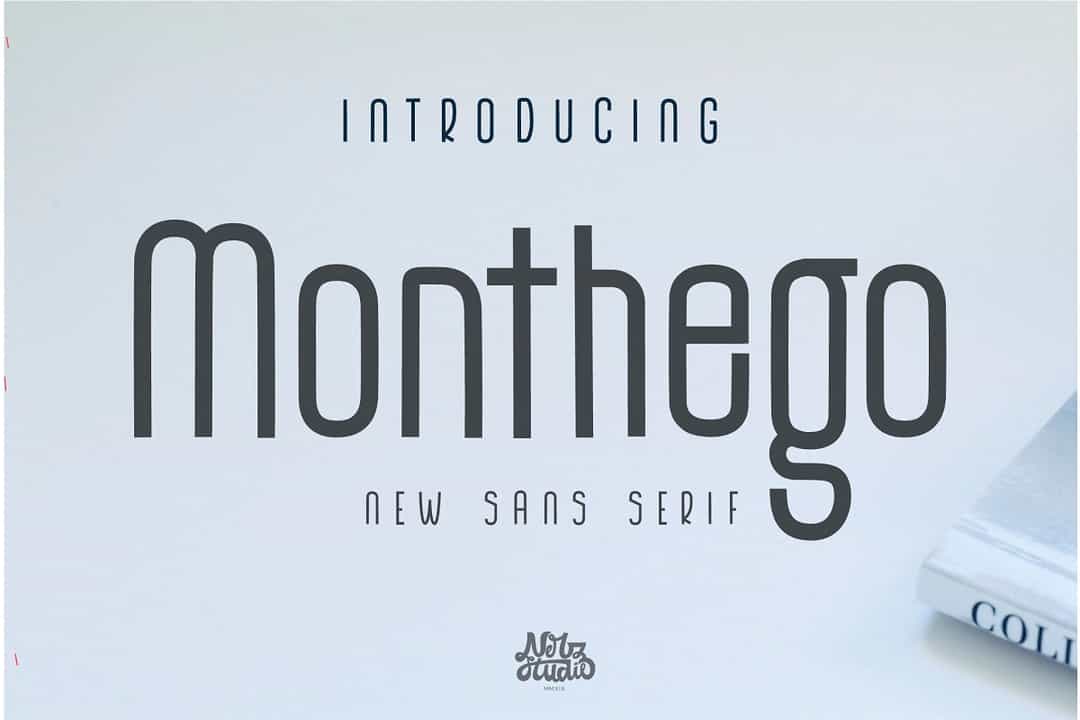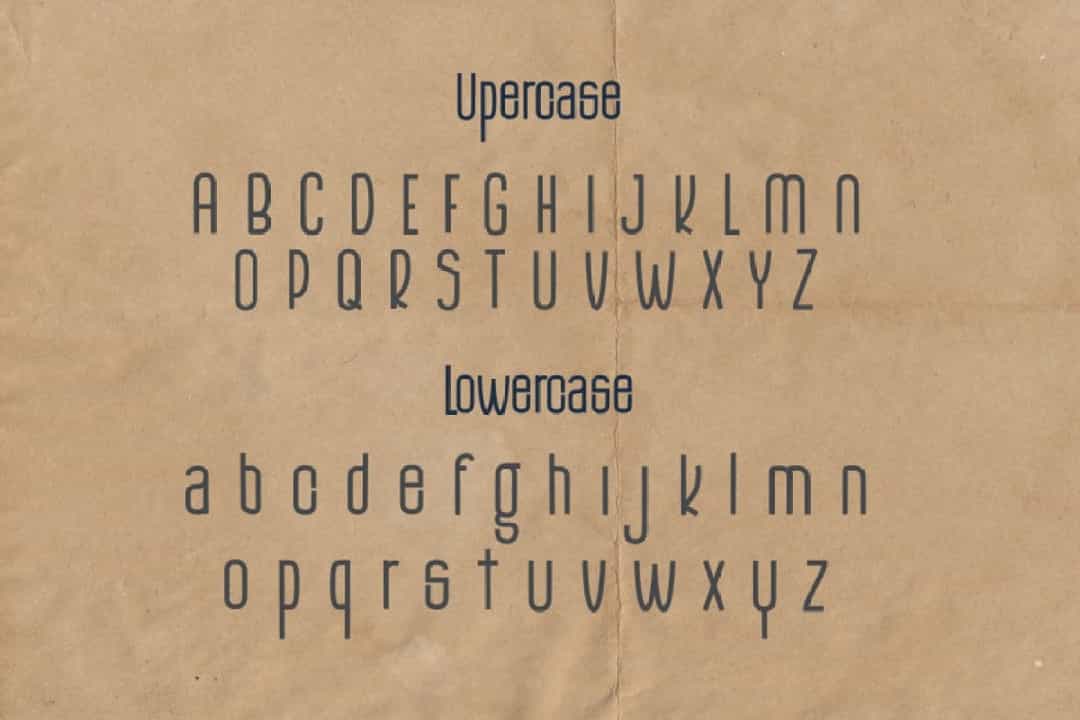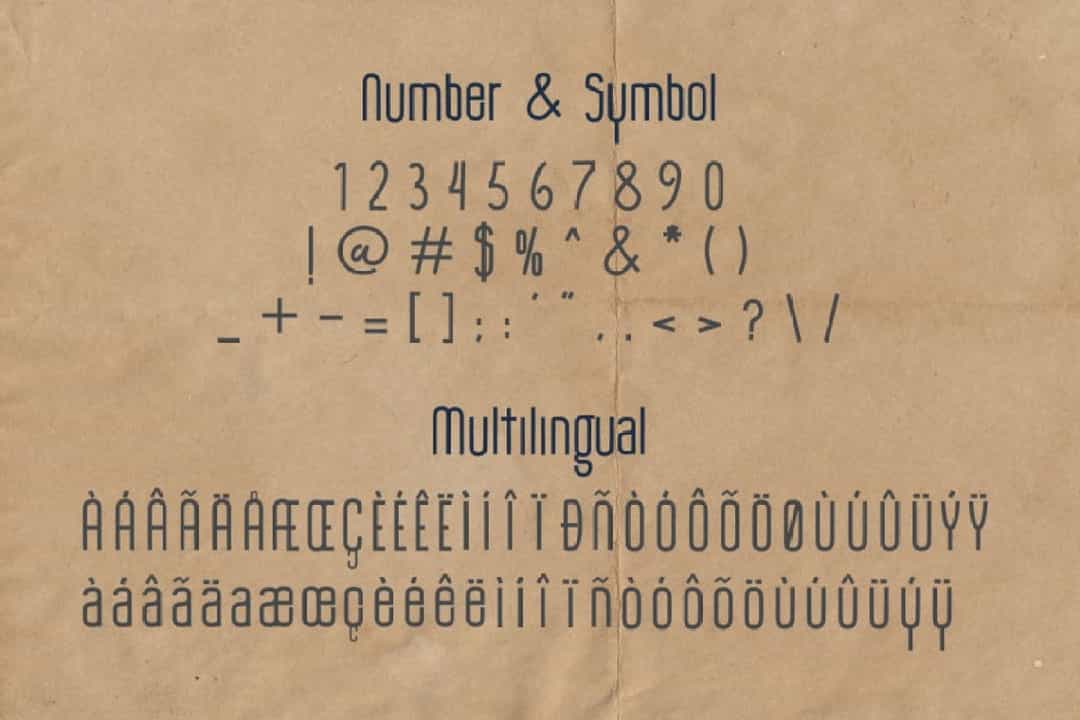
Monthego is a sans-serif font style that adds sophistication to any project or design that you are working on. Neither too light nor too heavy, its design provides symmetry and versatility – perfect for quotes Vlogger, logotypes fashion, web banner promotions, Musician song promotion and cafe or restaurant promotions and many other uses.